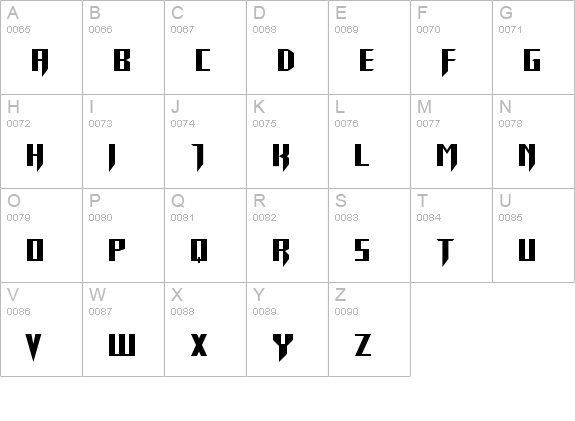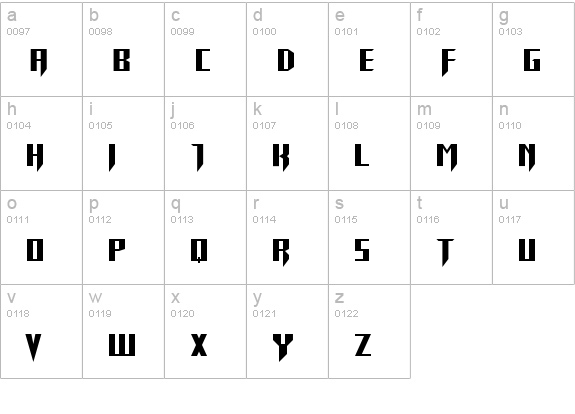
RETURN TO CASTLE Font Details
RETURN TO CASTLE font is an exquisite display font that brings a touch of vintage and elegance to your design projects. This font captures the essence of classic typography with its clean lines and intricate details. The letters are beautifully crafted, giving your text a timeless and sophisticated look. With its unique combination of bold and thin strokes, RETURN TO CASTLE font adds a sense of drama and impact to any design. Whether you're working on a logo, poster, or website, this font will instantly elevate your project and make it stand out. One of the best features of RETURN TO CASTLE font is that it is freely available to download at FontsMarket.com. This means that you can easily access this stunning font without any cost. Whether you're a professional designer or a hobbyist, you can enjoy the benefits of this font without breaking the bank. The versatility of RETURN TO CASTLE font is another reason why it is a must-have for any design enthusiast. It works well with both modern and vintage themes, making it suitable for a wide range of projects. From wedding invitations to book covers, this font can bring a touch of elegance and charm to any design. Not only does RETURN TO CASTLE font look great on its own, but it also pairs well with other fonts. Its clean and simple design allows it to complement various typefaces, allowing you to create unique and visually appealing combinations. In conclusion, RETURN TO CASTLE font is a stunning display font that offers a perfect blend of vintage charm and modern elegance. Its clean lines, intricate details, and bold strokes make it a versatile choice for any design project. Plus, the fact that it is freely available to download at FontsMarket.com makes it even more appealing. So why wait? Download RETURN TO CASTLE font today and take your designs to the next level.